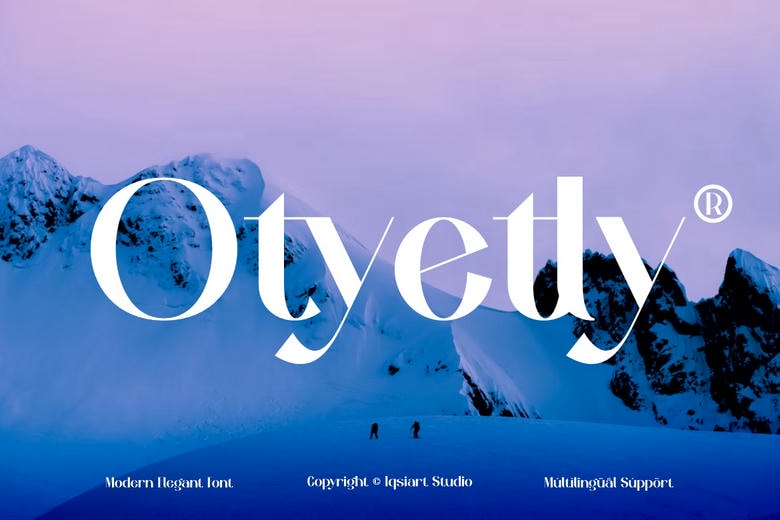
Otyetly Font
Add high-fashion flair, bold contrast, and a modern look to your work with Otyetly. This elegant serif font has thin hairlines, strong stems, sweeping tails, and long crossbars. Its bold proportions give any design a sense of editorial luxury and artistic balance.
Otyetly is a great choice for luxury boutique branding, fashion magazine titles, cosmetics packaging, editorial layouts, stylish logos, and elegant wedding invitations.